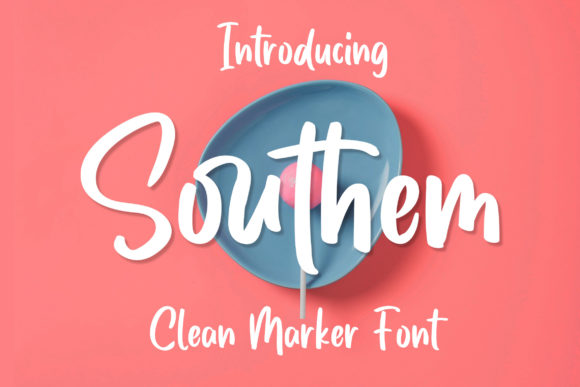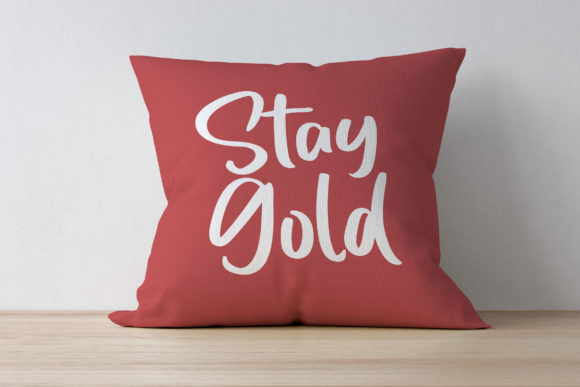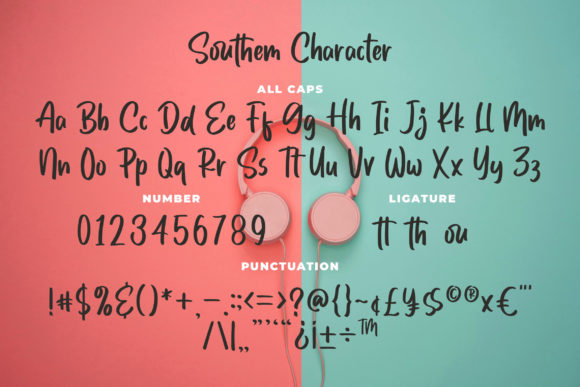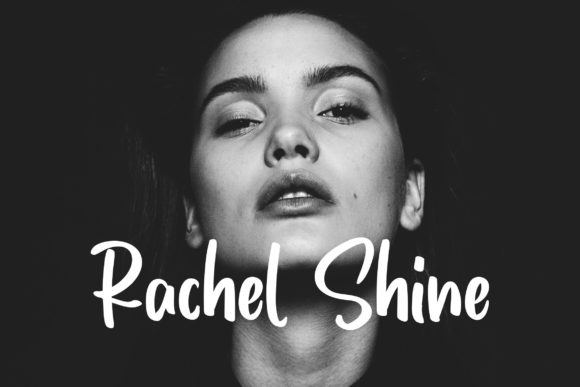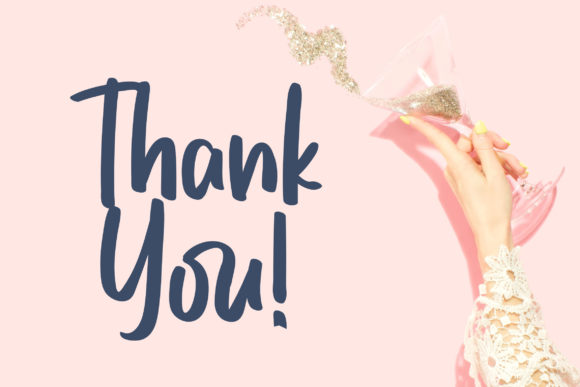
HomeScript FontsSouthem Font Script Fonts Southem Font FacebookXPinterestWhatsApp Southem Font Poster 2 Southem Font Poster 3 Southem Font Poster 4 Southem Font Poster 5 About Southem Font Southem is a script font made with markers. It will add a romantic touch to any crafting project! DOWNLOAD NOW People also explored Dancing Candy Font Santaclaus Font Twenty One Script Font Winter Font Miracles Signature Font Easter Bunny Font Peacelove Font Mochiver Font Qalesya Font 410 0 TagsSouthem Font Previous articleWishes FontNext articleKatherine Font LEAVE A REPLY Cancel reply Comment: Please enter your comment! Name:* Please enter your name here Email:* You have entered an incorrect email address! Please enter your email address here Website: Save my name, email, and website in this browser for the next time I comment. Personal Use Free Hunters Personal Use Free Read more about this font Manbow Personal Use Free Read more about this font Roustel Personal Use Free Read more about this font Good Timing – Bold Personal Use Free Read more about this font BLOG 5 Fonts That Will Dominate Design Trends in 2026 5 Fonts for 2026 That Will Dominate Design Trends Typography plays a critical role in visual communication, and as we look ahead to 2026, it’s... Transform Your Website: Elevate Your Typography with 7 Best Web Font Generators How to Cut Any Font on Cricut: Convert a Font to SVG (Free) Best Fonts for YouTube Videos: Make Your Thumbnails Stand Out